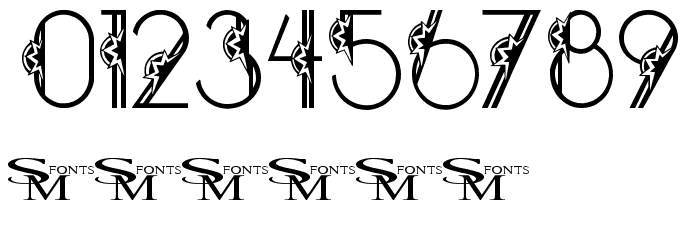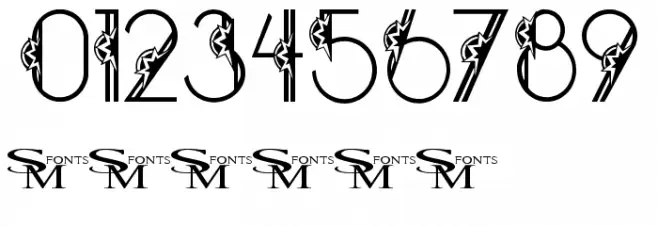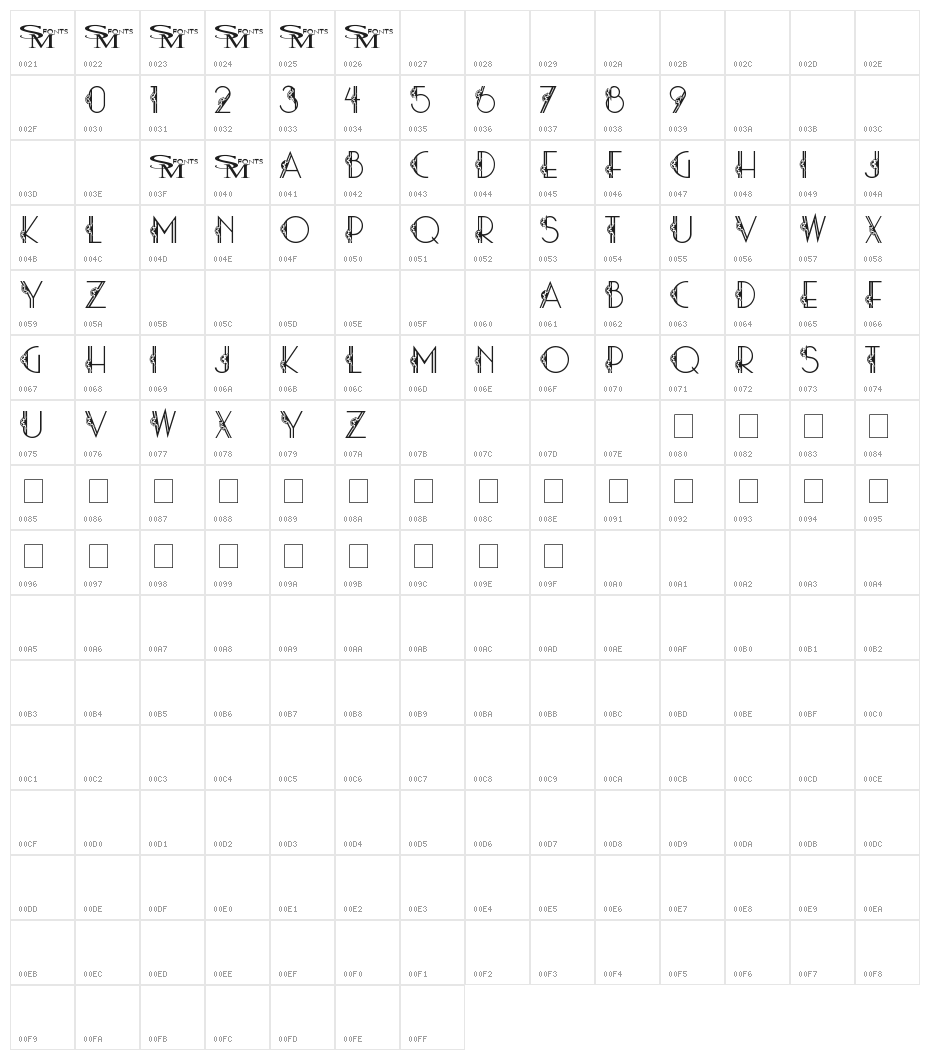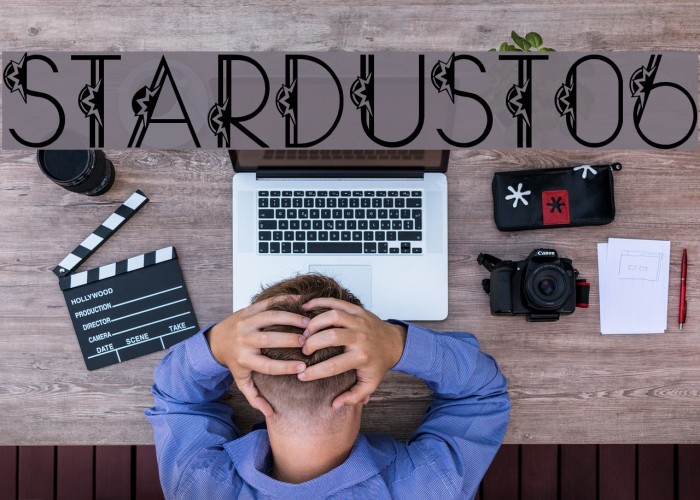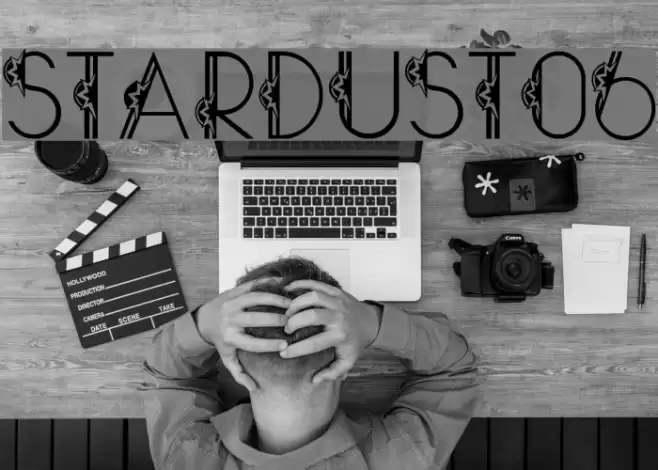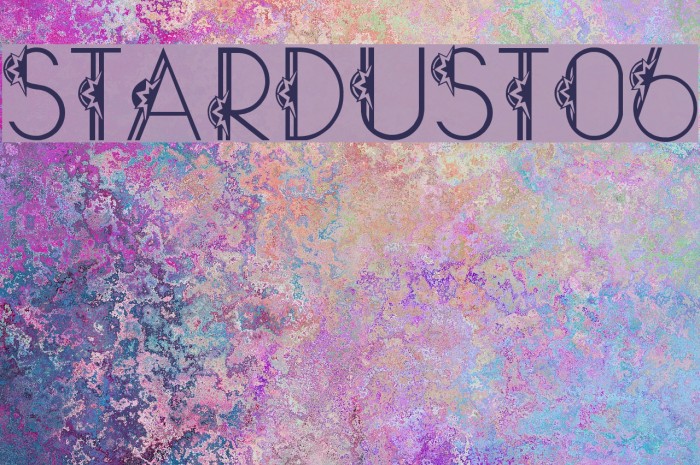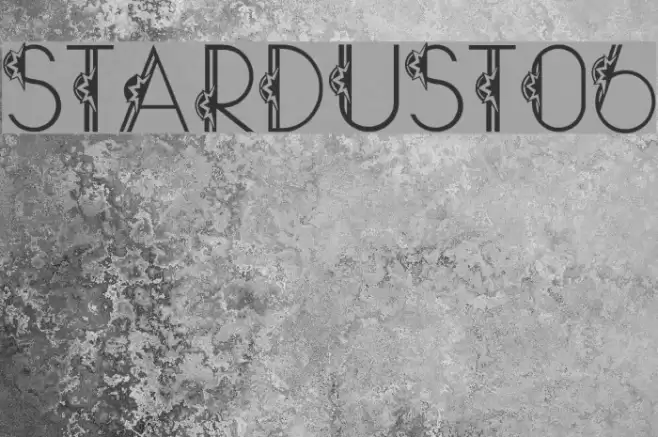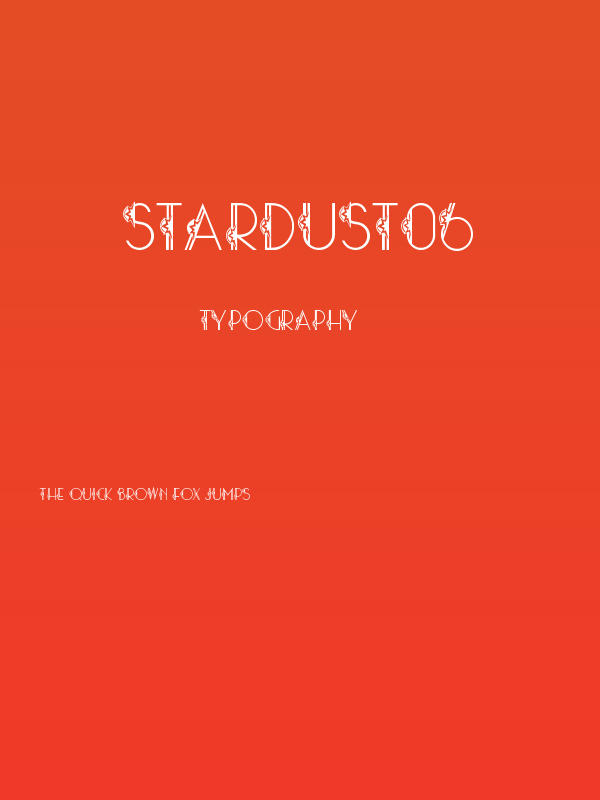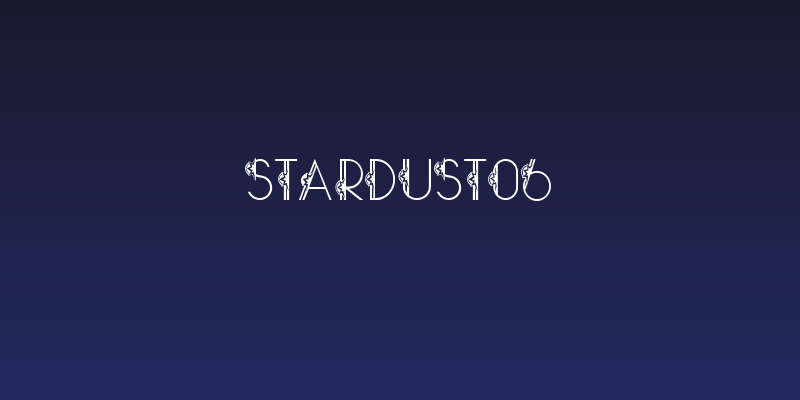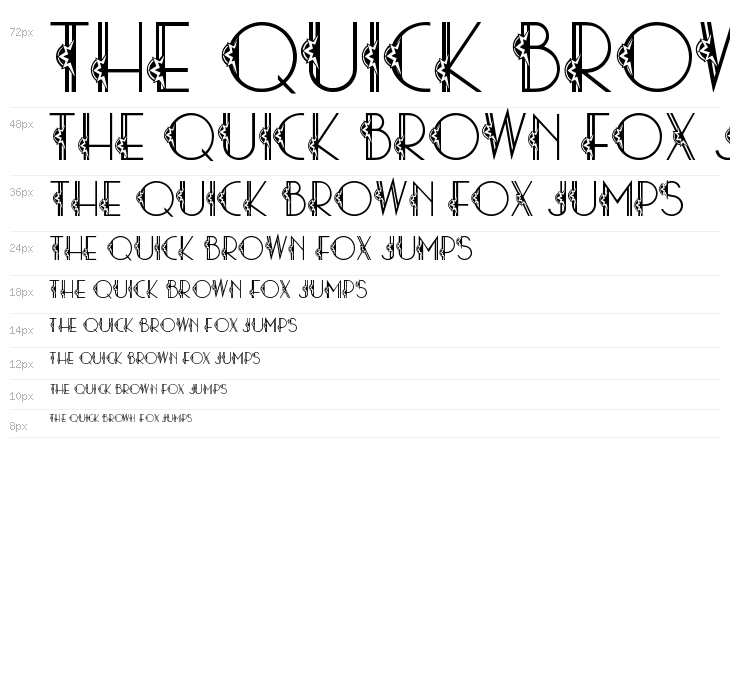
stardust06 Font
stardust06 Description
This font features an elegant and decorative style, characterized by its intricate detailing within each character. The design incorporates a unique blend of Art Deco influences with modern aesthetics, showcasing elongated strokes and ornamental elements that create a sense of sophistication and luxury. Each letter is adorned with symmetrical embellishments, adding a touch of artistic flair. The font maintains a consistent structure across uppercase, lowercase, and numeric characters, ensuring a cohesive appearance. Its distinct style makes it suitable for projects that require a touch of elegance and creativity.